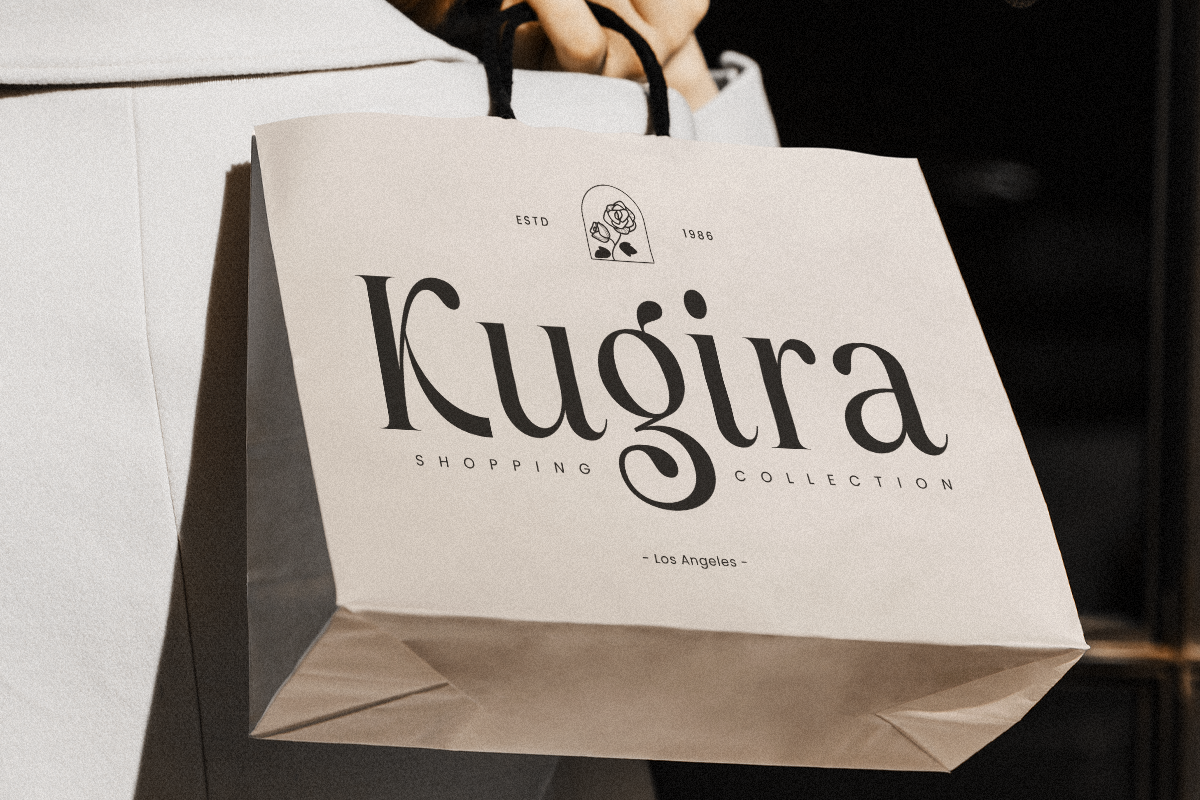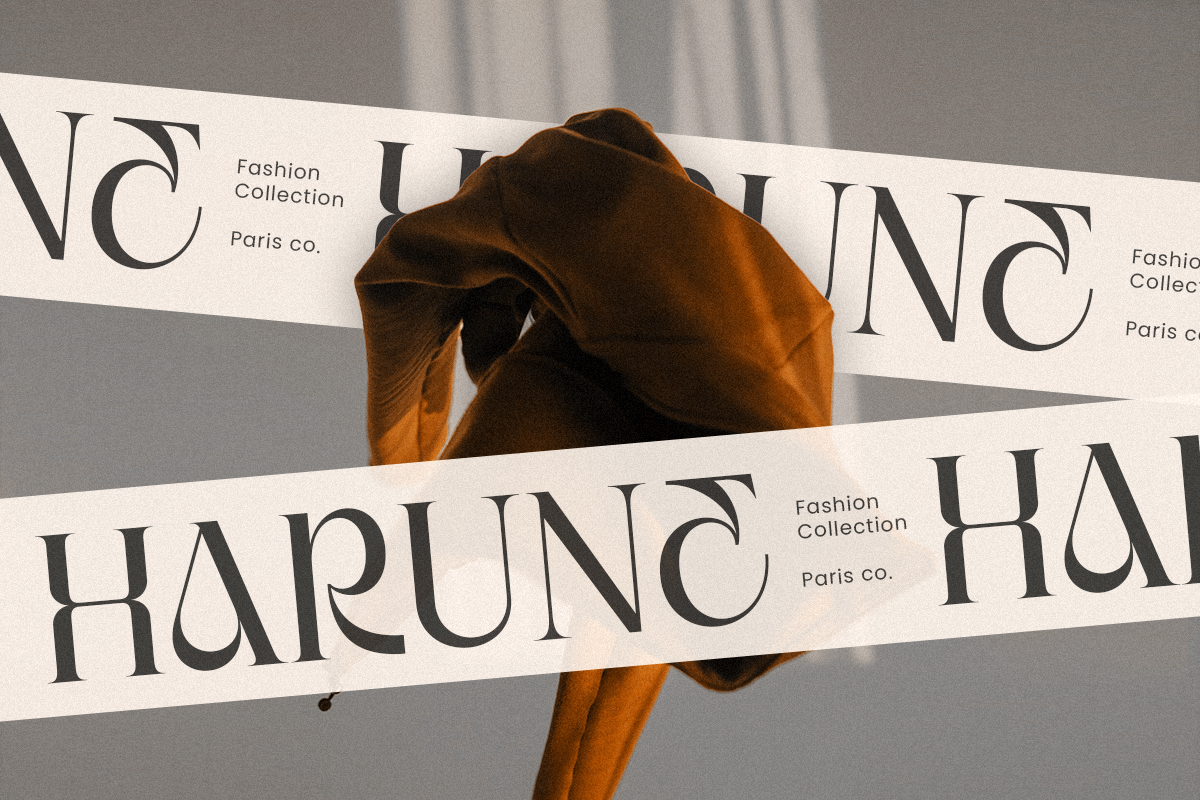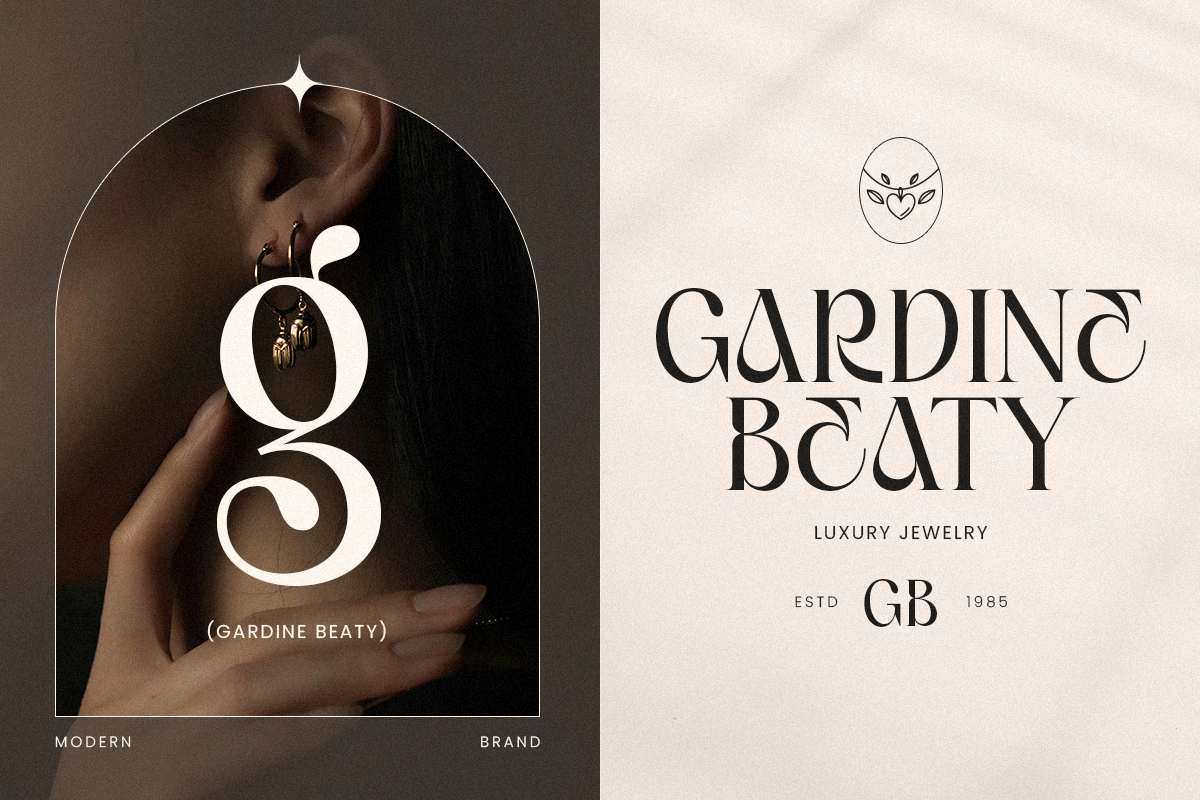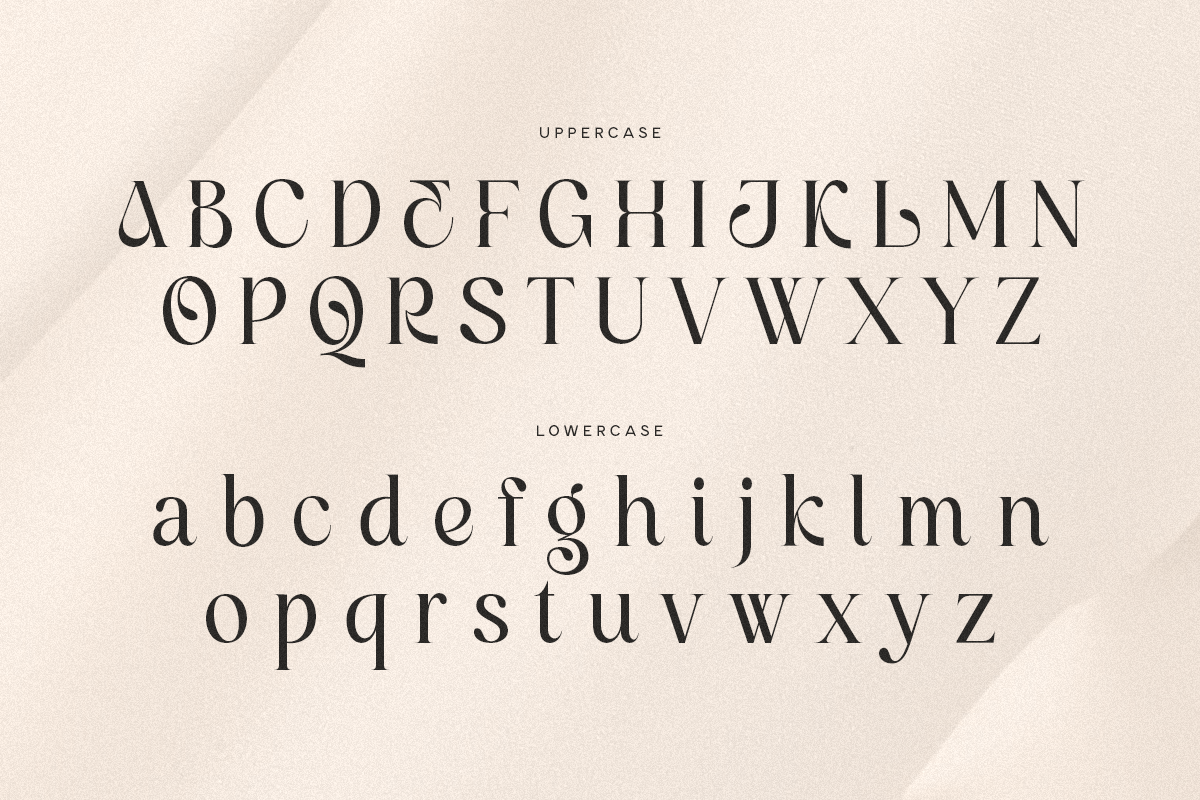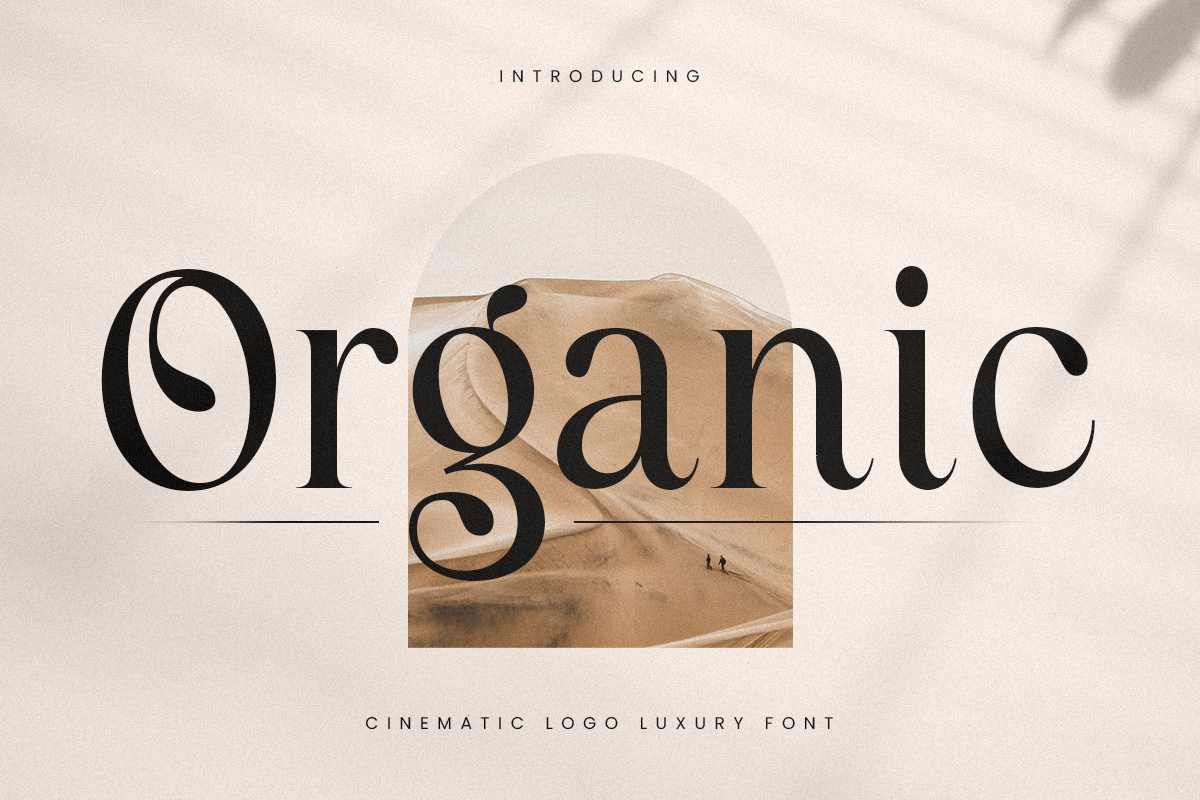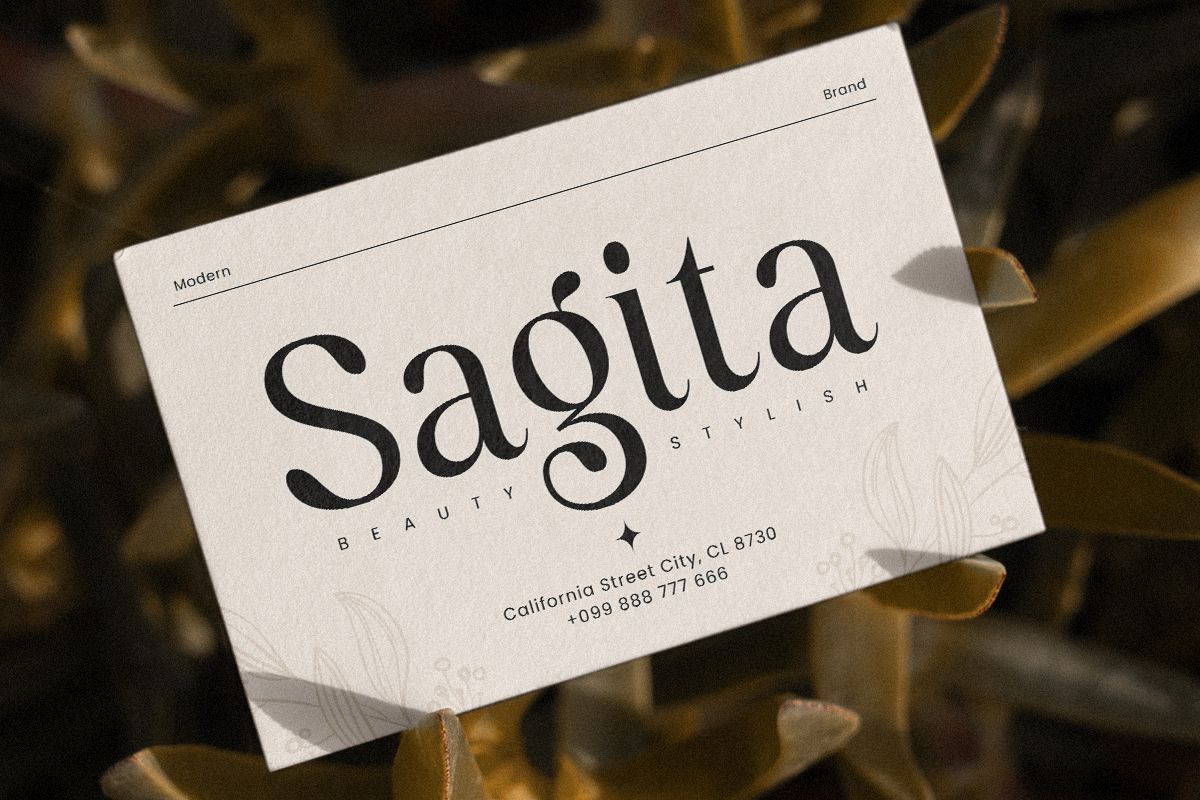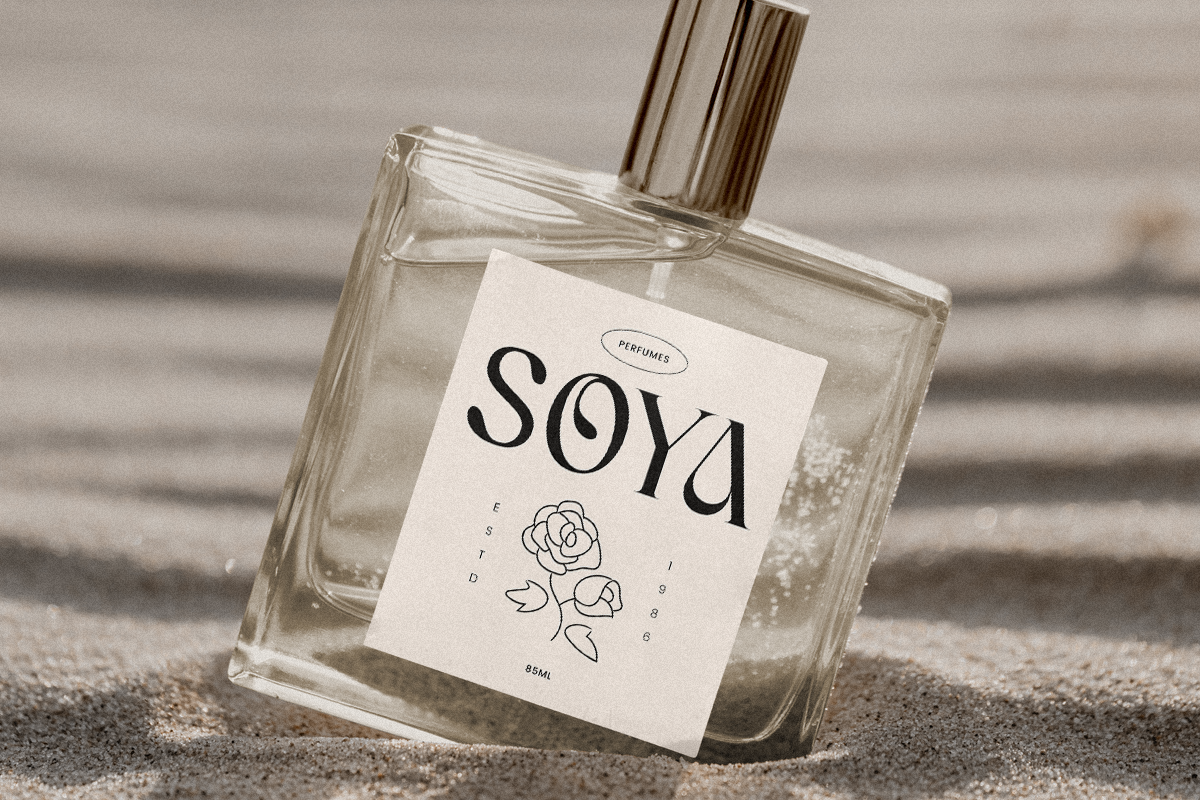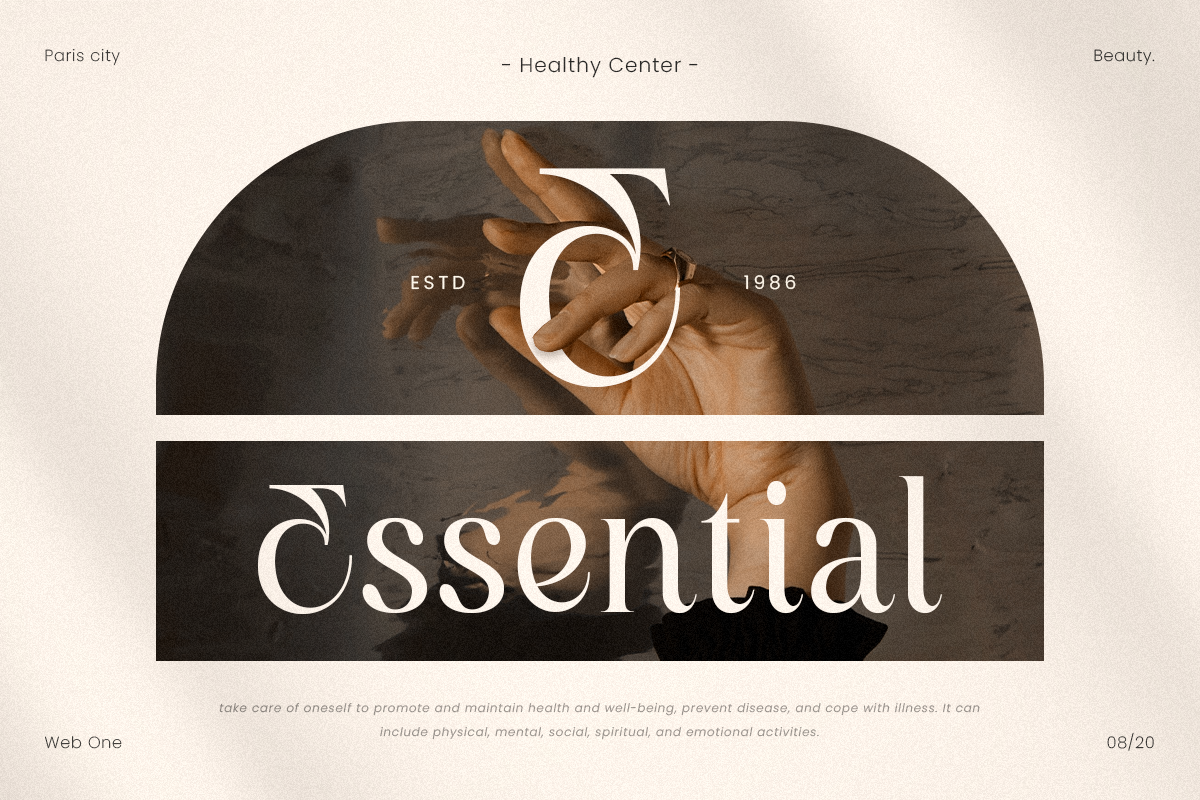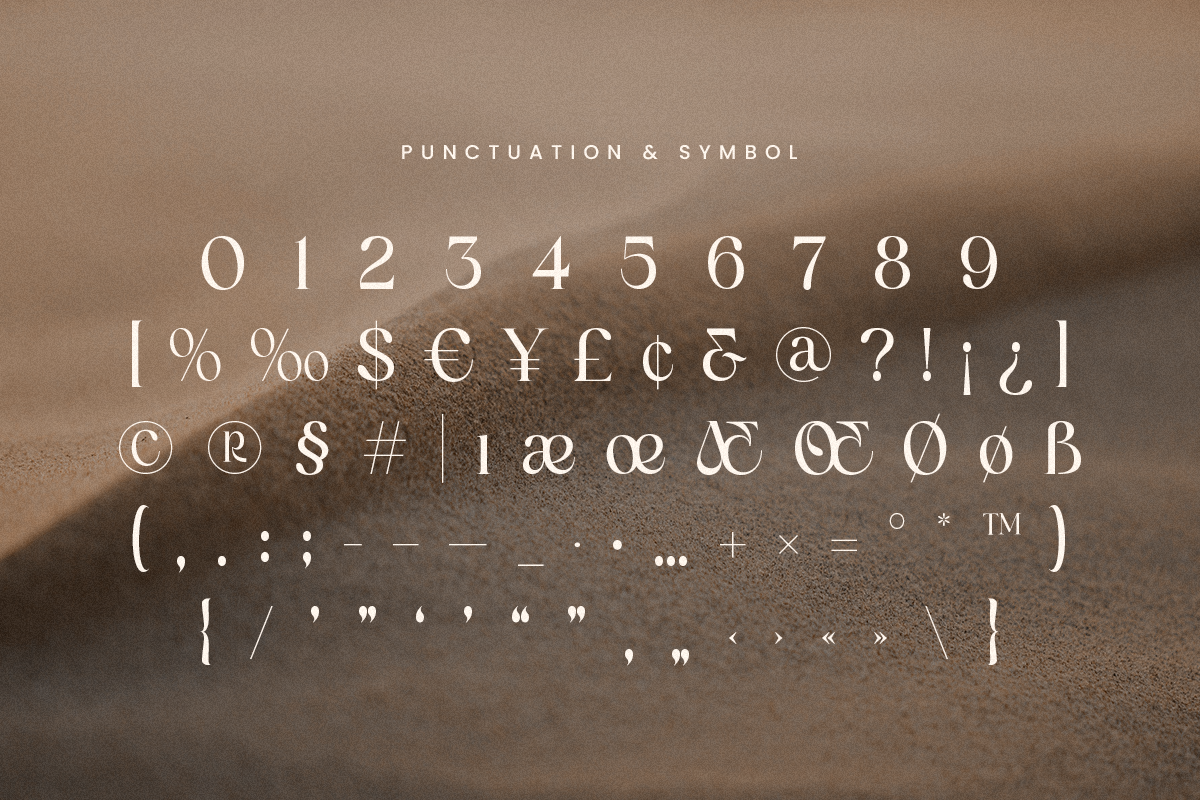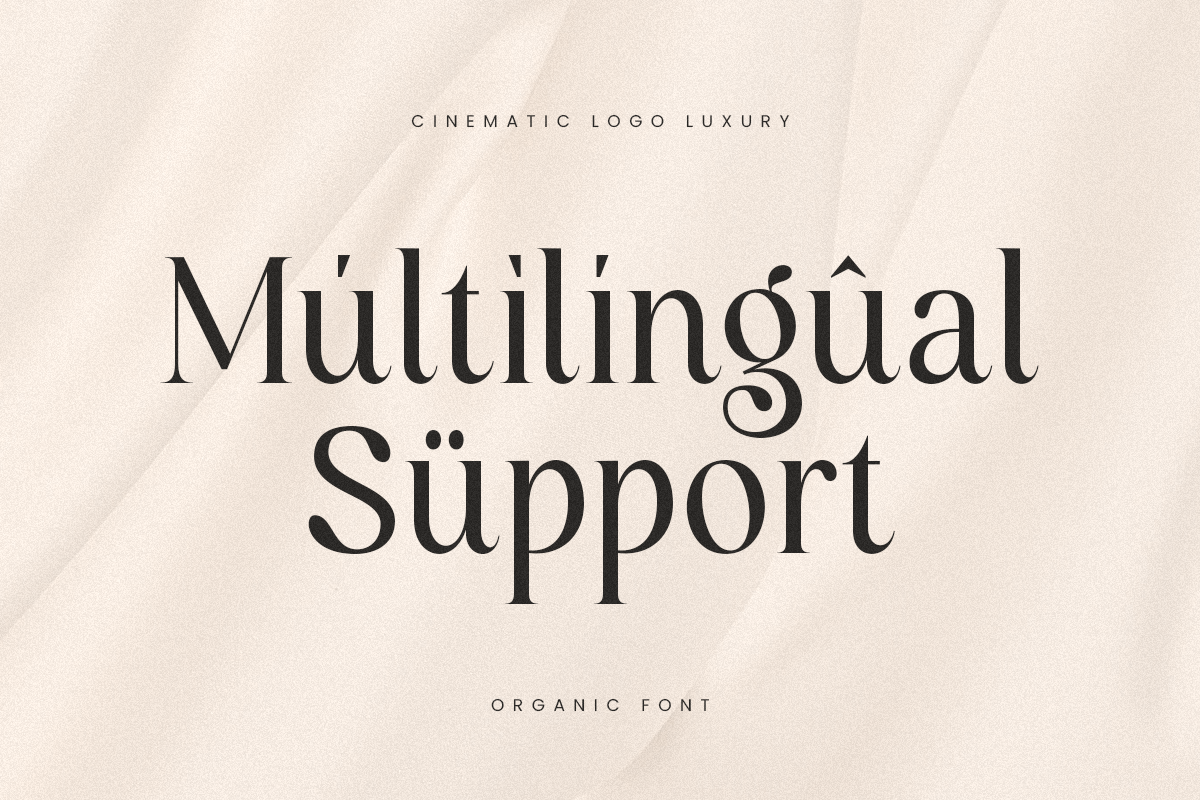
Organic - Cinematic Logo Luxury Font
An exclusive luxury font tailored for sophisticated and modern branding, offering an elegant aesthetic to enhance your brand's allure. Crafted with unique alternates, this font is designed to elevate the value of your brand. Whether you're a designer or a product owner seeking stylish and modern solutions, this font provides the perfect answer. Boasting an array of bohemian characters, it opens the door to endless creative possibilities, allowing you to create a myriad of variations for your unique and stylish designs.
- Unique Characters
- Character set A-Z
- Numerals & Punctuation
- Accented Characters (West Europe)